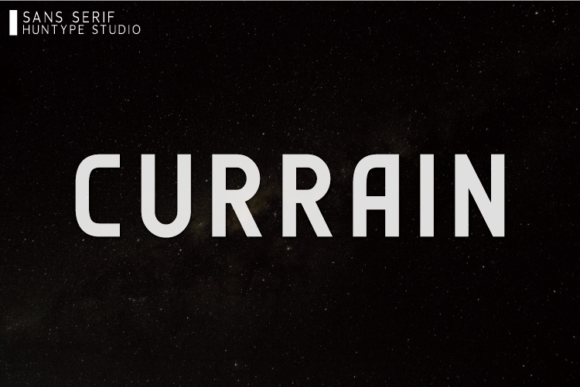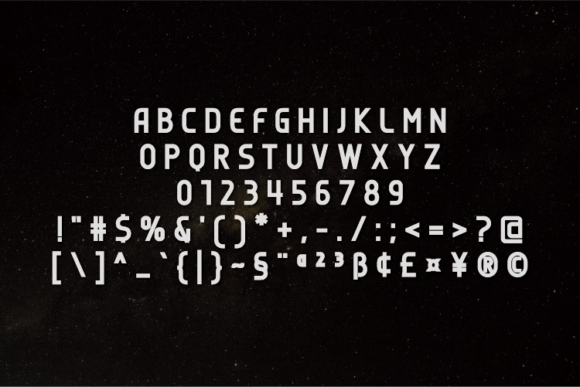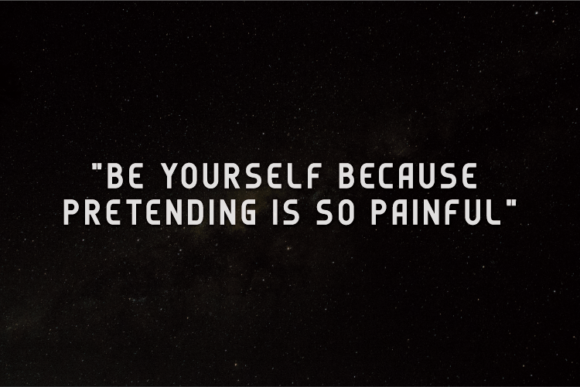
The Perfect Typography Companion for Your Next Project
Have you ever stared at a blank canvas, struggling to bring your design idea to life? You’ve tried countless combinations of colors, shapes, and fonts, but nothing seems quite right. That’s where a reliable and versatile font like the Currain Font comes in.
This simple yet striking sans serif font is a game-changer for designers looking to elevate their projects. With its thick, bold letters, Currain Font is perfect for logos, branding, and web headings. Its clean and modern aesthetic makes it an ideal choice for a wide range of applications, from digital to print media. By adding the Currain Font to your toolkit, you’ll be able to confidently create stunning visual identities that capture your audience’s attention.
Currain Font Key Features
- Unique Characteristics: The font features a unique, elegant design with subtle nuances in letterform and stroke variation, giving it a distinctive and sophisticated look.
- Script Support: Currain Font includes support for a wide range of languages, including Latin, Cyrillic, and Greek scripts, making it a versatile choice for international design projects.
Currain Font Review
When I first laid eyes on Currain Font, I was immediately drawn to its elegant and refined aesthetic ✨. The combination of curved lines and subtle rounded edges creates a sense of sophistication that’s hard to ignore. I appreciate the font’s versatility, as it can be used effectively in a wide range of designs, from minimalist logos to luxurious branding materials.
One of the standout features of Currain Font is its excellent legibility, even at smaller font sizes ✨. The font’s clean lines and balanced proportions make it easy to read, even for those with visual impairments. I also appreciate the wide range of language support, which makes it an excellent choice for global brands.
While Currain Font is an excellent choice for many design projects, there are some limitations to consider ⚠️:
- Limited expressiveness: Currain Font is a relatively formal font, which may not be suitable for projects that require a more playful or experimental tone.
- May not work well in bold settings: While Currain Font looks great at smaller font sizes, it may not hold up well in bold or all-caps settings, where the curves can become lost.
Overall, I’m impressed with Currain Font’s elegance and versatility ✨. While it may not be the best choice for every design project, it’s an excellent option for those seeking a refined and sophisticated look. With a bit of creativity and experimentation, Currain Font can add a touch of luxury to even the most mundane designs.
Tips for Getting the Most Out of Currain Font
Use Currain Font for headings and titles to add a touch of elegance to your designs.
Combine Currain Font with other fonts for a unique and visually appealing look.
Experiment with different font sizes and styles to achieve the desired effect.
Branding and marketing materials
Editorial and publishing content